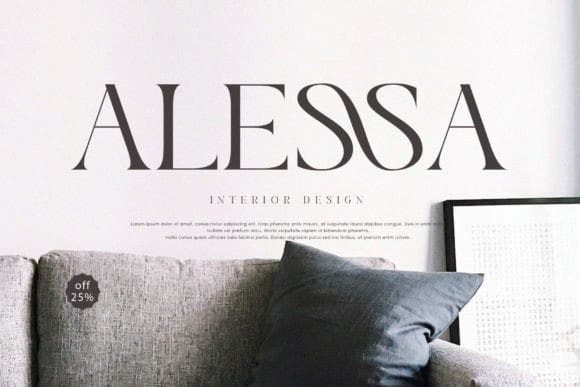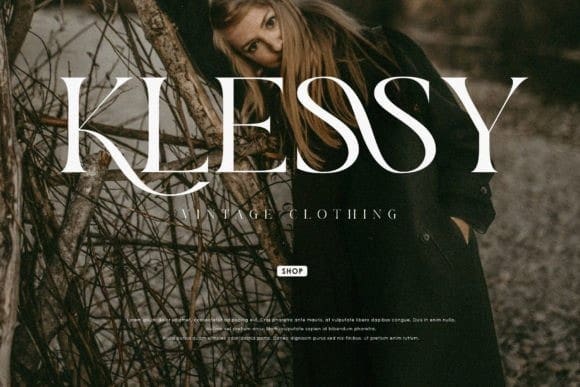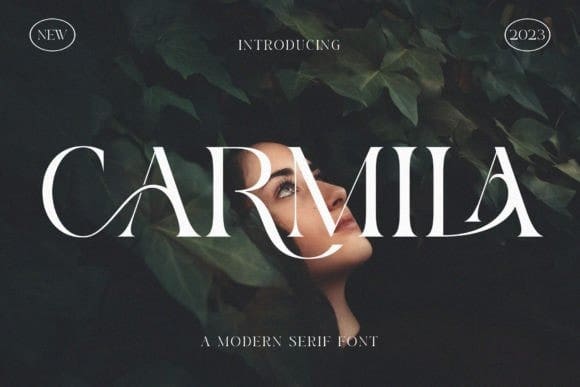
Carmila Font
Carmila Font –  An elegant and modern serif typeface. With its modern and minimalist appearance, Carmila brings a luxurious and clean style to your projects such as websites, modern logos, branding identities, social media quotes, wedding stationery and various other needs!